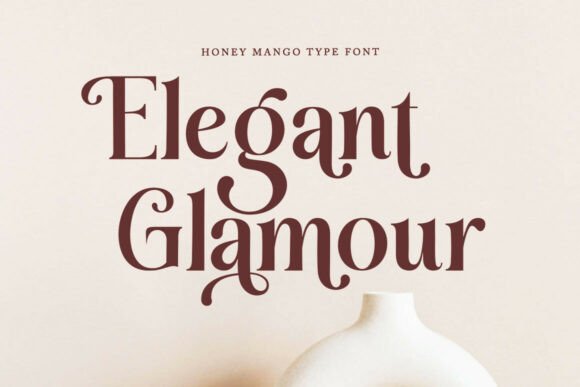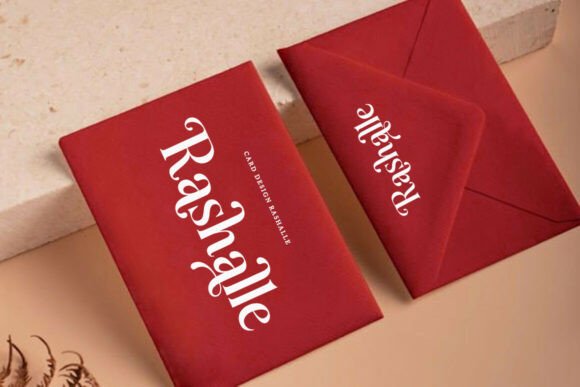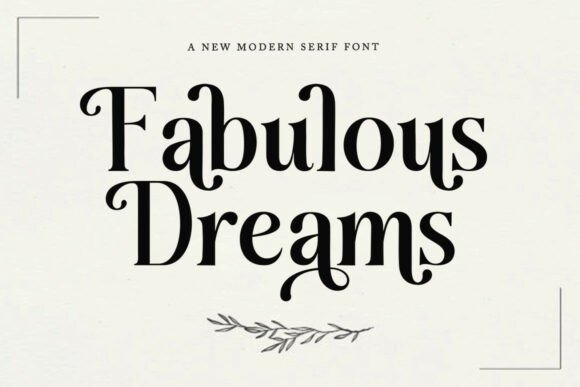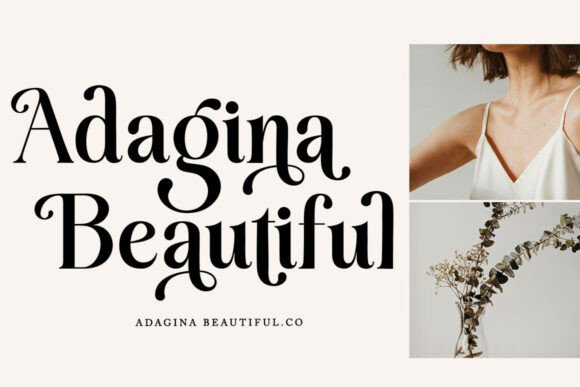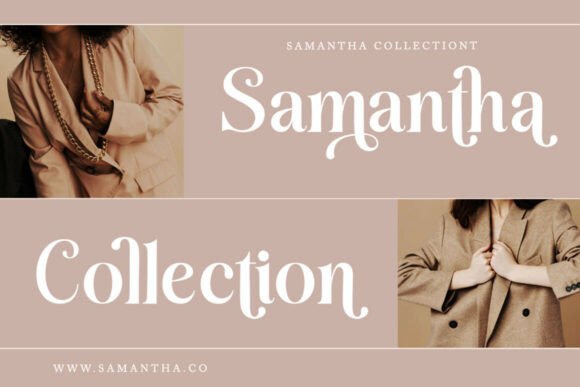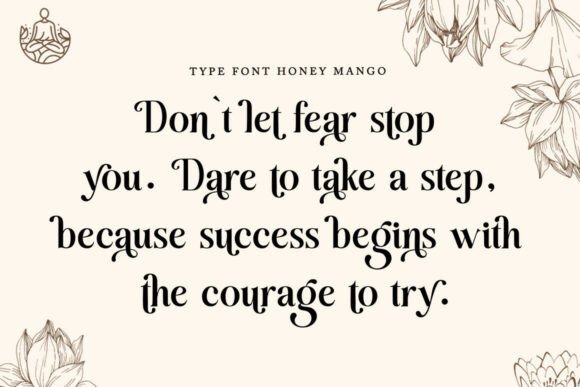
The Perfect Font for Your Creative Masterpiece
Have you ever stared at a blank page, eager to bring your creative vision to life, but struggling to find the right words to express it? This is where the magic happens, and the right font can make all the difference. For designers, finding the perfect font can be a daunting task, but what if I told you there’s a font that can elevate your work to the next level?
Introducing the Honey Mango Font, a stunning serif font that exudes elegance and sophistication. This beautifully crafted font is designed to help you convey your message with style and finesse, making it perfect for a wide range of creative projects, from invitations and labels to restaurant menus and fashion designs.
What sets the Honey Mango Font apart is its versatility and readability, making it an invaluable asset for designers looking to add a touch of luxury to their work. With its sleek, clean design and luxurious letter connections, this font is sure to impress.
Honey Mango Font Key Features
- Font Family: Honey Mango Font comes in 2 font families, Regular and Bold, to cater to various design needs.
- Unique Characteristics: Honey Mango Font features a unique blend of modern and traditional design elements, making it perfect for creating eye-catching and stylish designs.
Honey Mango Font Review
As a designer, I was excited to dive into the world of Honey Mango Font. I’ve seen it pop up in various design communities, and I was eager to see if it lived up to the hype. ✨
- The font’s unique blend of modern and vintage styles creates a captivating visual experience. It’s perfect for projects that need a touch of elegance and sophistication.
- The extensive character set and language support make it a great option for international projects.
- The font is highly legible, even at smaller sizes, making it suitable for body text and titles alike.
- ⚠️ The font’s high contrast may not be suitable for dark backgrounds, as the white spaces between characters can get lost.
- ⚠️ Some users may find the font’s unique style too ornate or busy, which can be a distraction in certain contexts.
Overall, I’m impressed with the Honey Mango Font. While it may not be perfect for every project, it’s a great addition to any designer’s toolkit. With its unique style and extensive character set, it’s sure to add a touch of personality to any design. If you’re looking for a font that’s a bit unconventional, Honey Mango Font is definitely worth checking out.
Getting the Most Out of Honey Mango Font
To get the most out of Honey Mango Font, use it for:
- Food and drink branding
- Travel and tourism marketing
- Summer and tropical-themed designs
Honey Mango Font is perfect for:
- Restaurant and cafe menus
- Travel brochures and posters
- Summer-themed social media graphics
Alternatives to “Honey Mango Font” for Designers
The Great Vibes Font is a beautiful, elegant script font that’s perfect for creating a luxurious and sophisticated look. It’s ideal for use in wedding invitations, luxury branding, and high-end packaging. Compared to Honey Mango Font, Great Vibes Font is more refined and less playful, making it suitable for more formal designs.
The Pacifico Font is a modern, cursive script font that’s great for creating a relaxed and casual vibe. It’s perfect for use in branding, packaging, and advertising for companies that want to convey a sense of freedom and adventure. Compared to Honey Mango Font, Pacifico Font is more laid-back and less sweet, making it suitable for designs that require a more carefree feel.
The Alex Brush Font is a beautiful, handwritten script font that’s perfect for creating a personal and intimate look. It’s ideal for use in invitations, stationery, and branding for companies that want to convey a sense of warmth and approachability. Compared to Honey Mango Font, Alex Brush Font is more delicate and less bold, making it suitable for designs that require a more subtle touch.